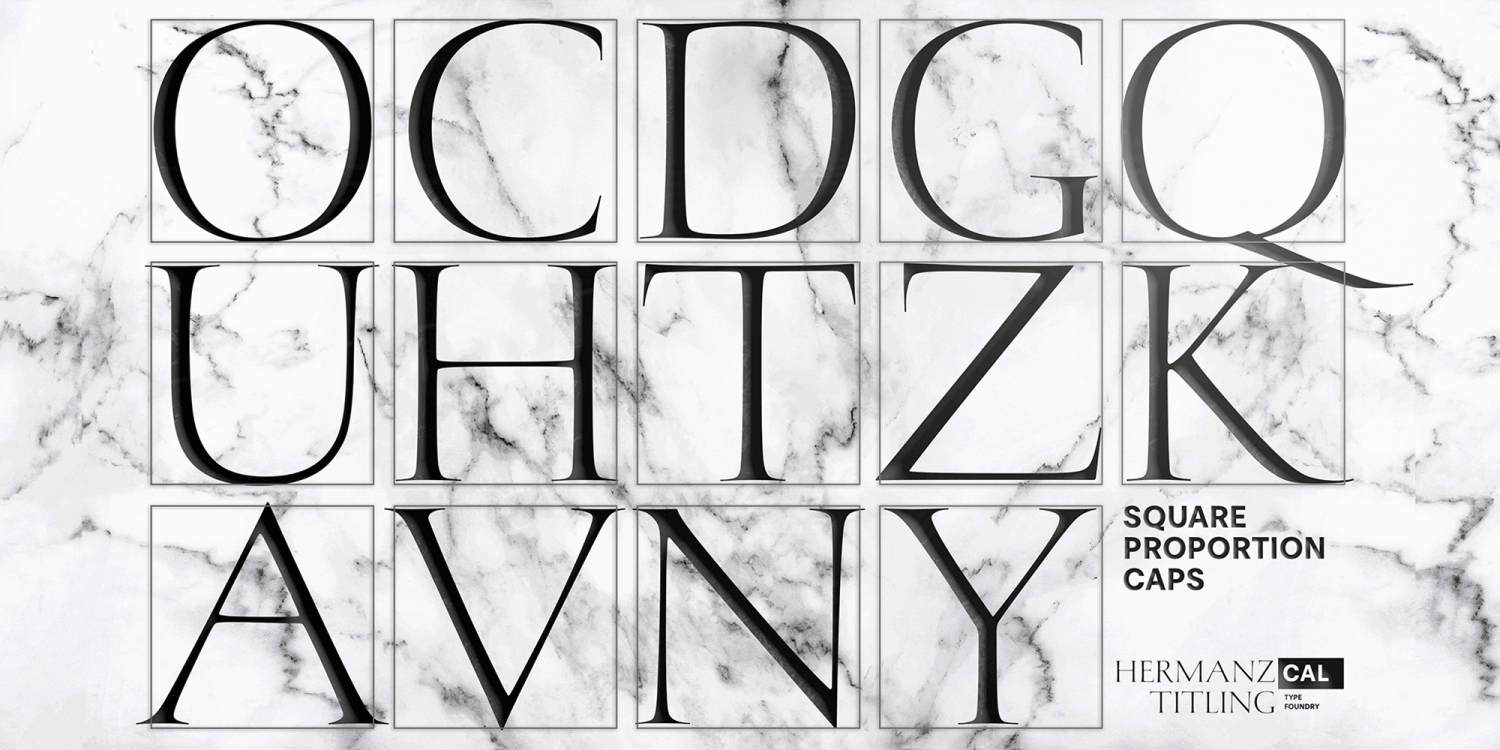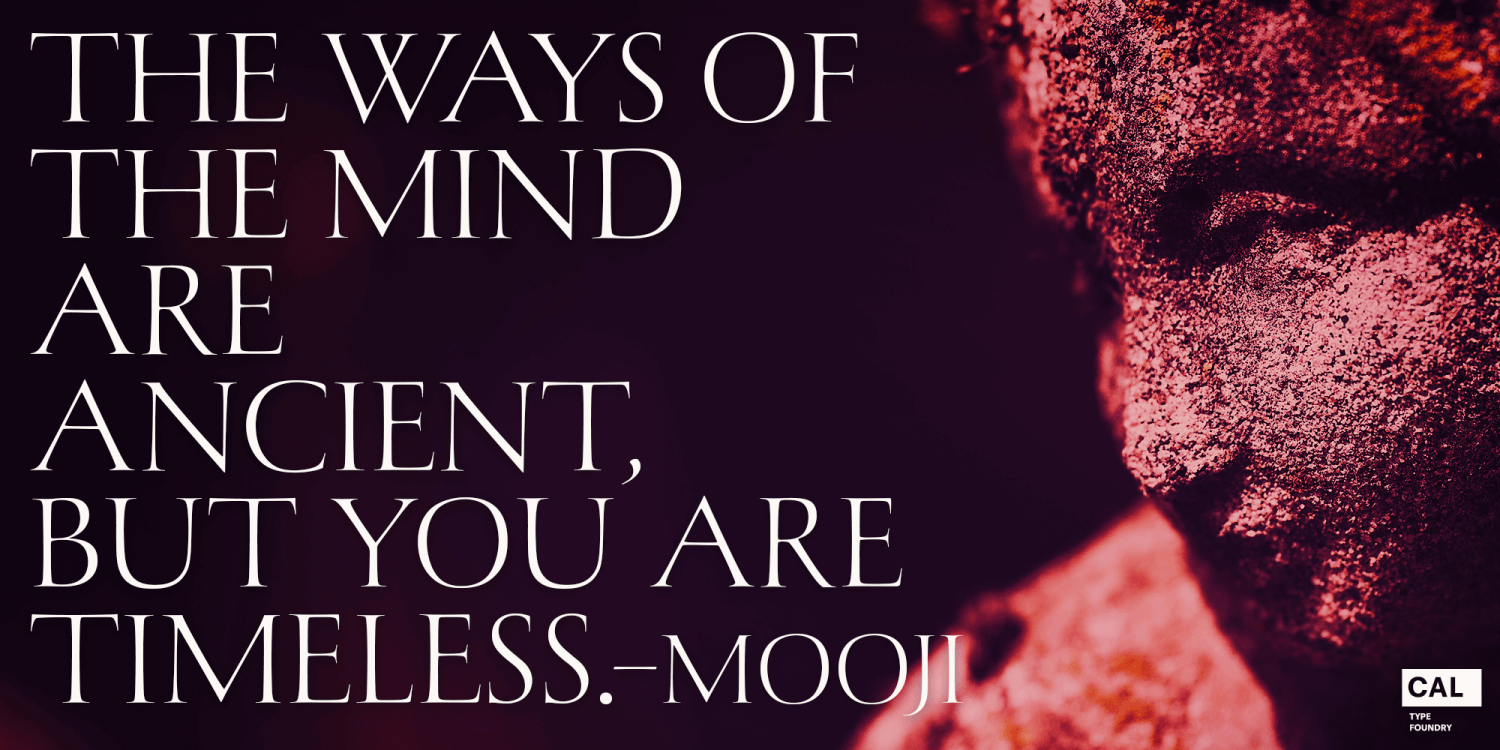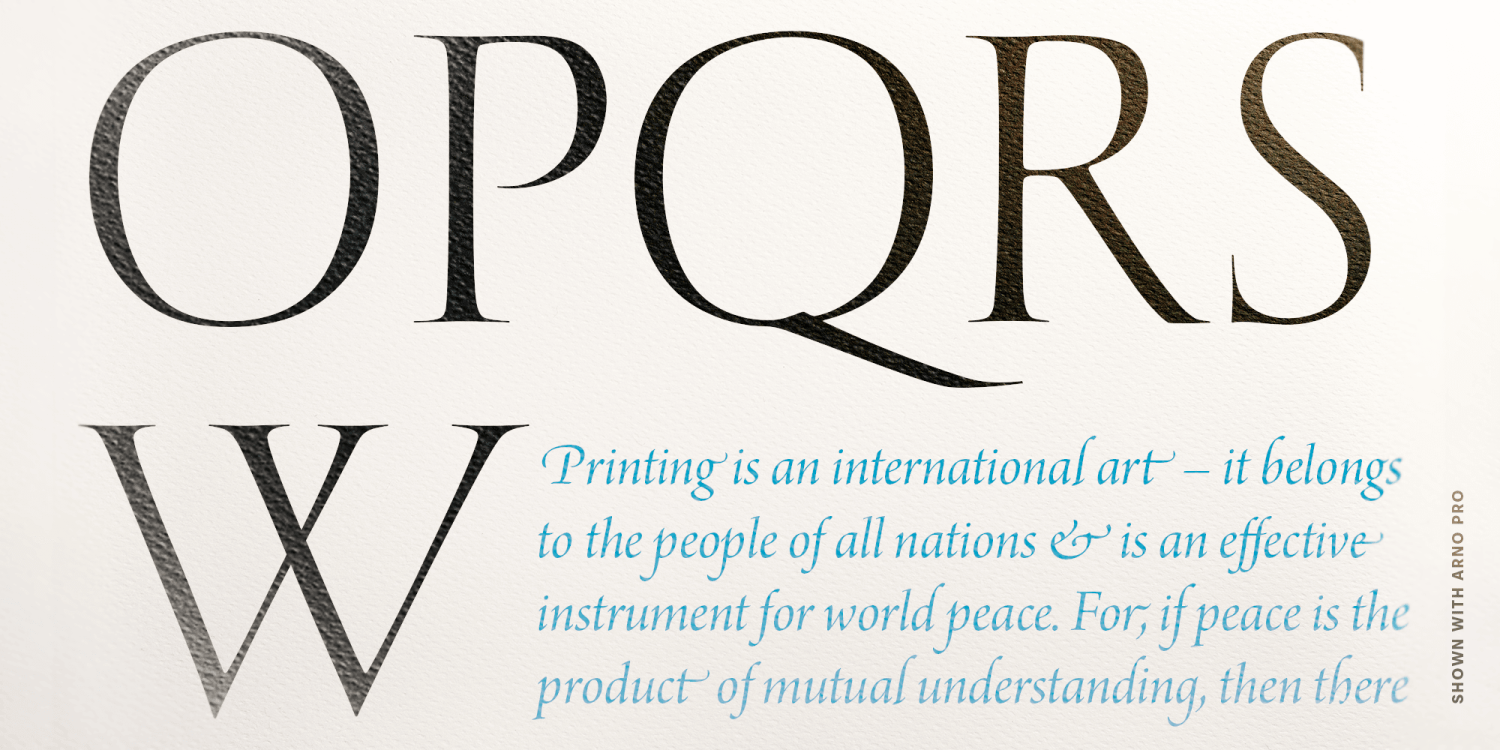
About Hermanz Titling
Hermanz Titling is inspired by the most majestic caps that Hermann Zapf ever drew. They are inscriptional caps, square caps, or ?capitalis monumentalis?. These caps are some of the most beautiful letters made by one of the greatest talents of our time;…